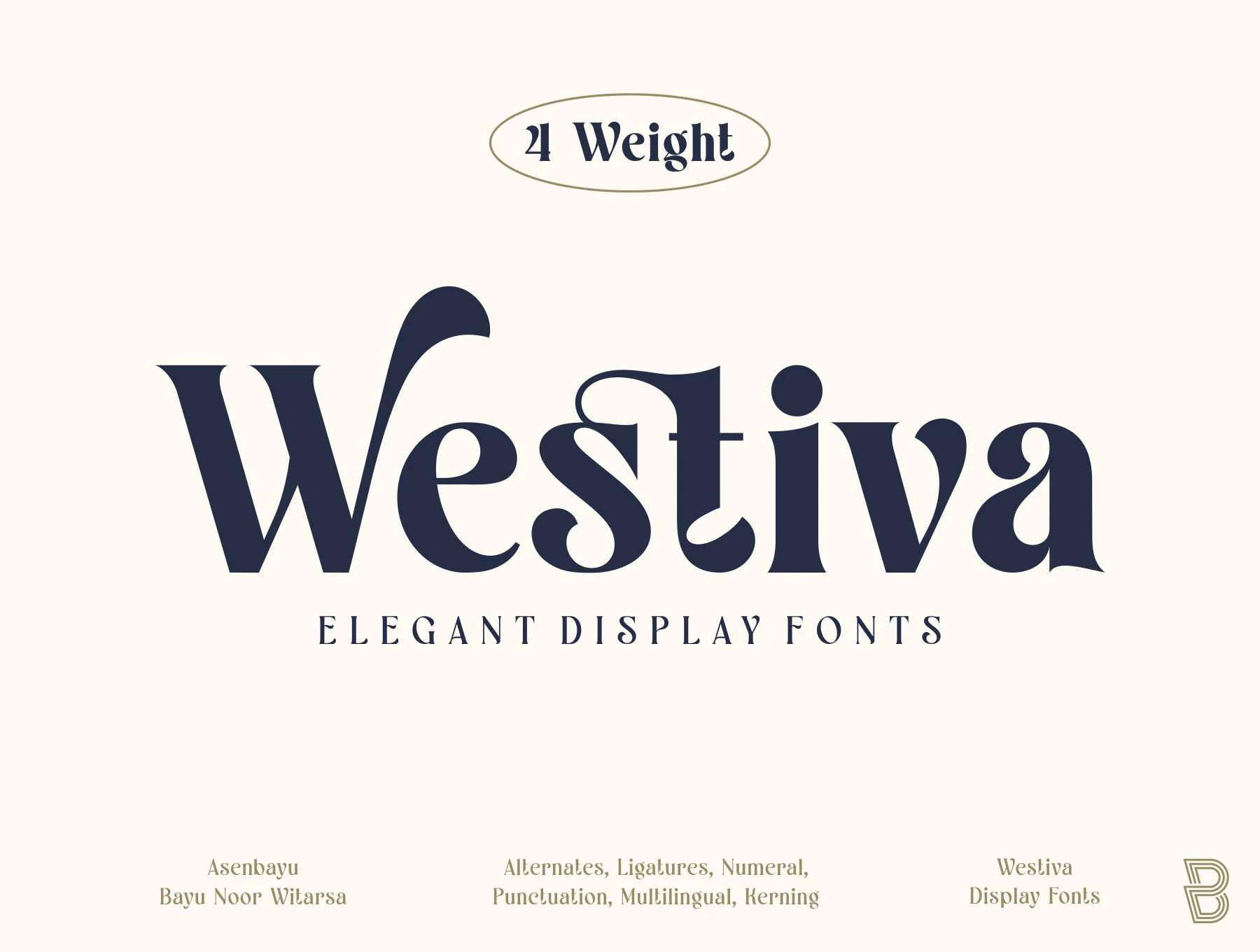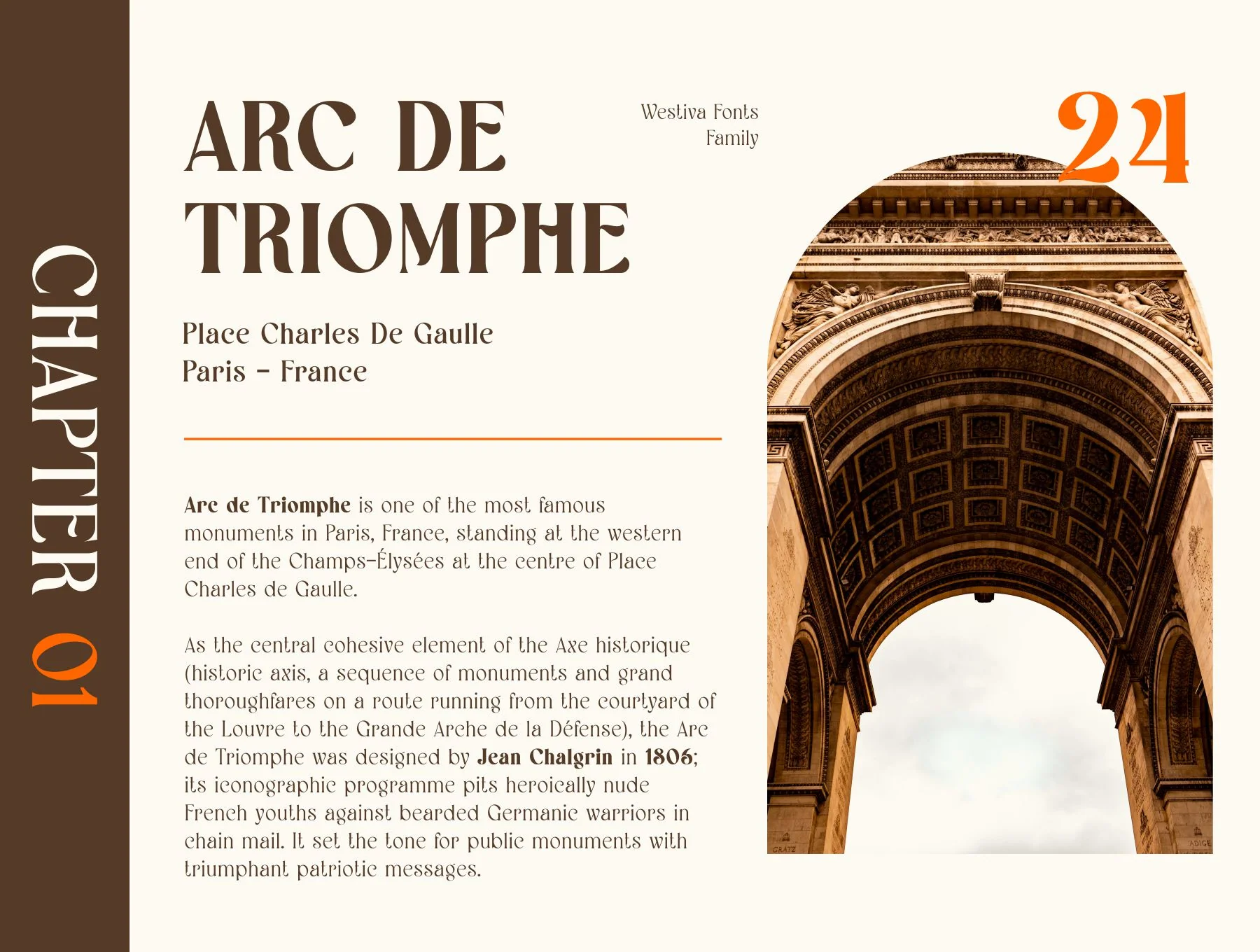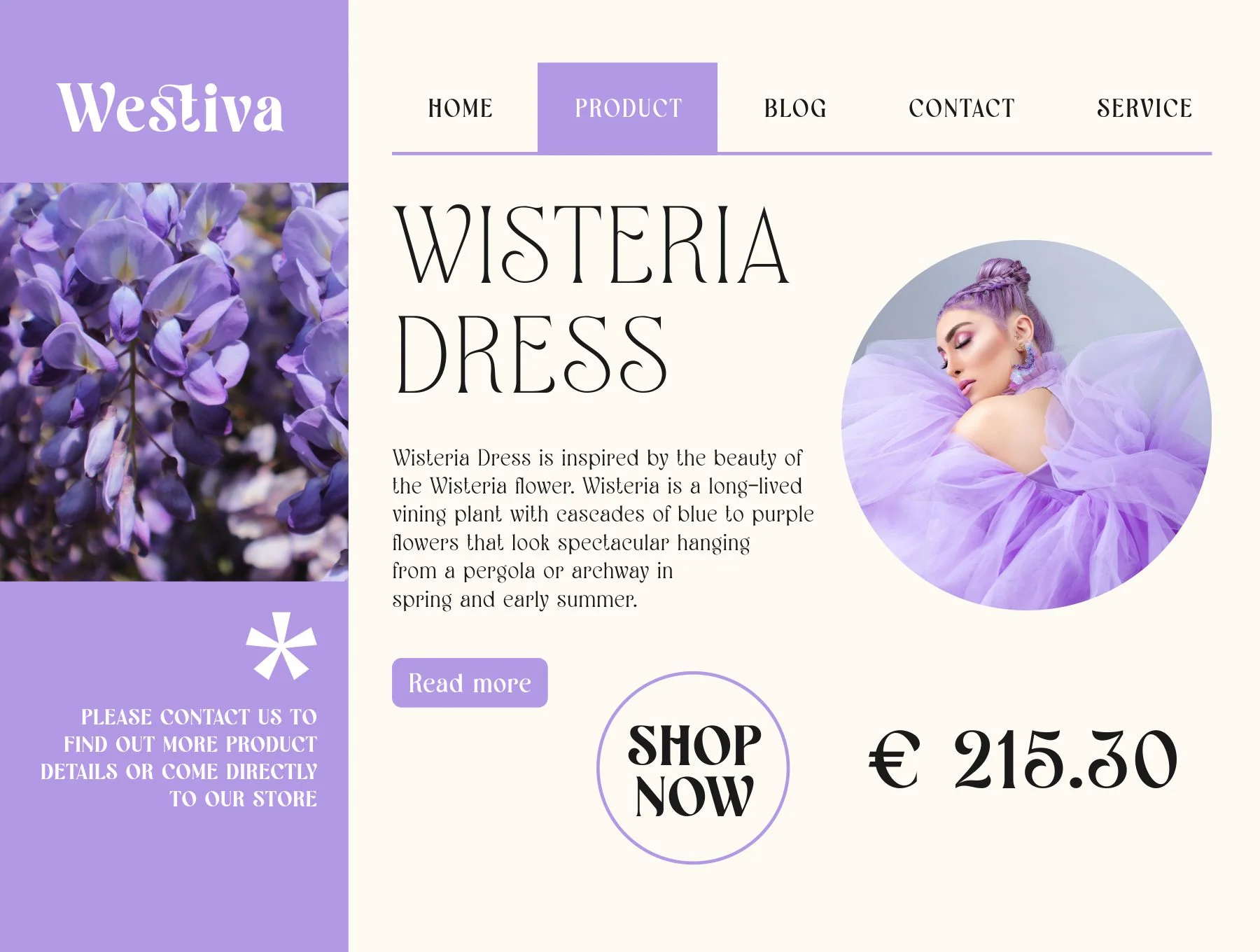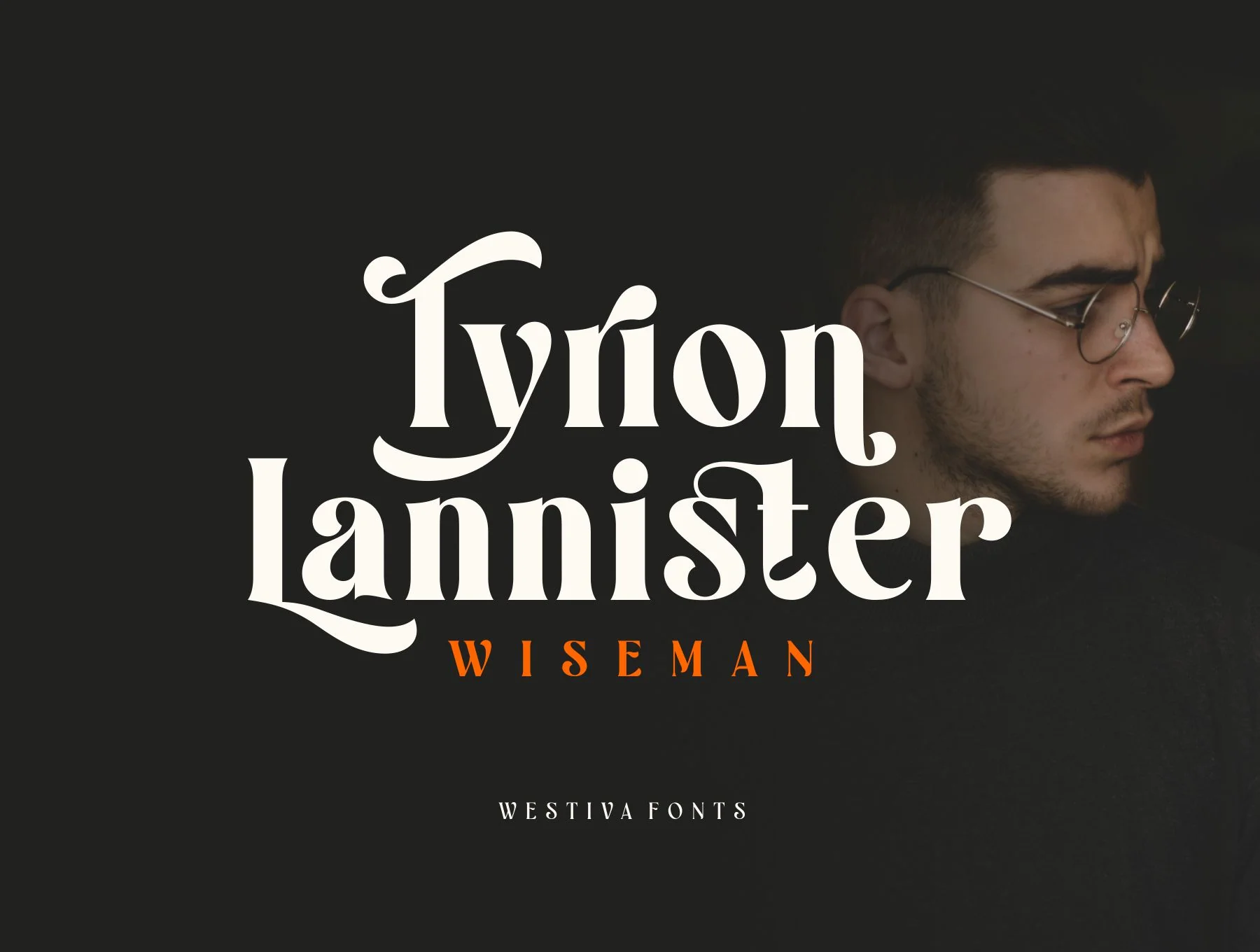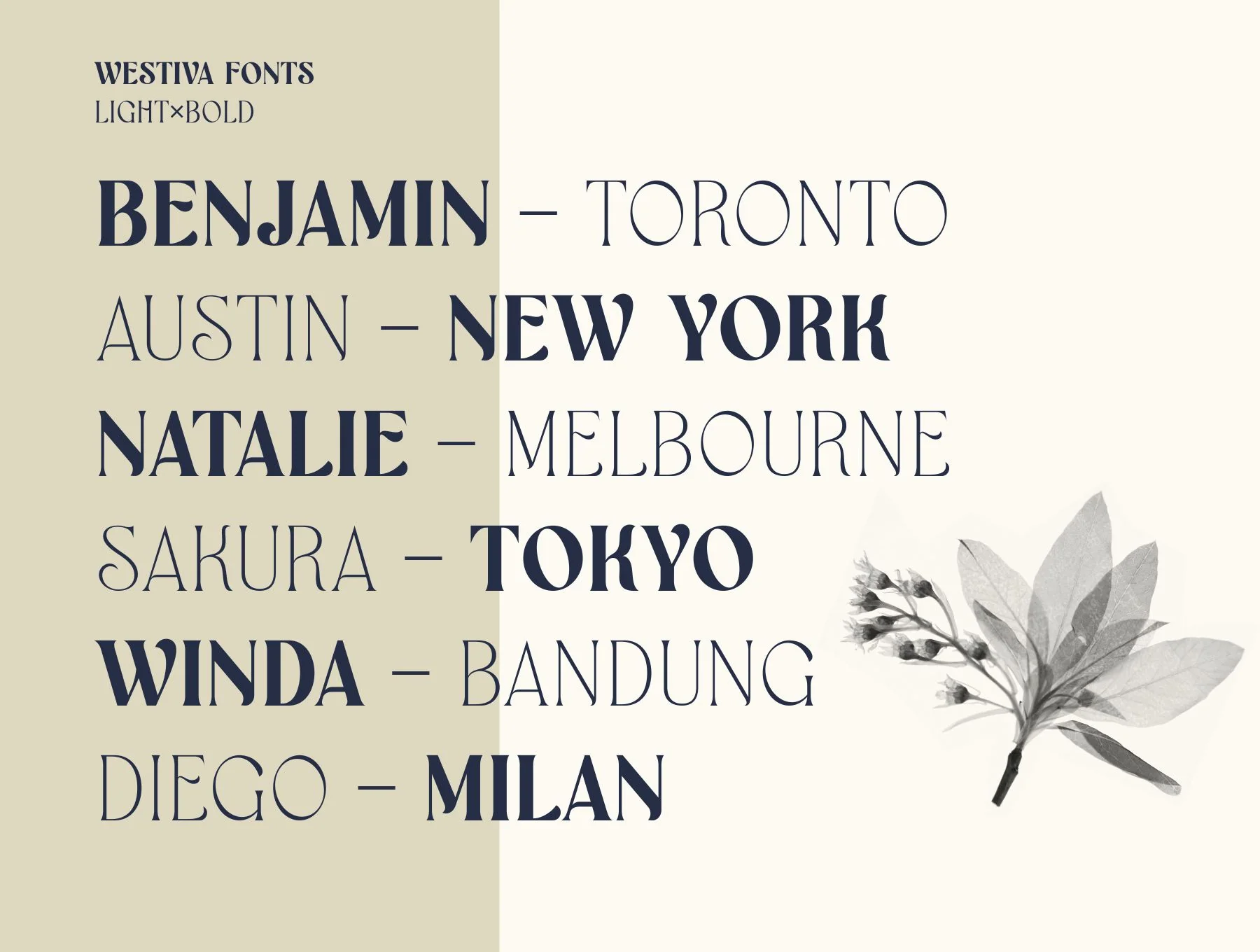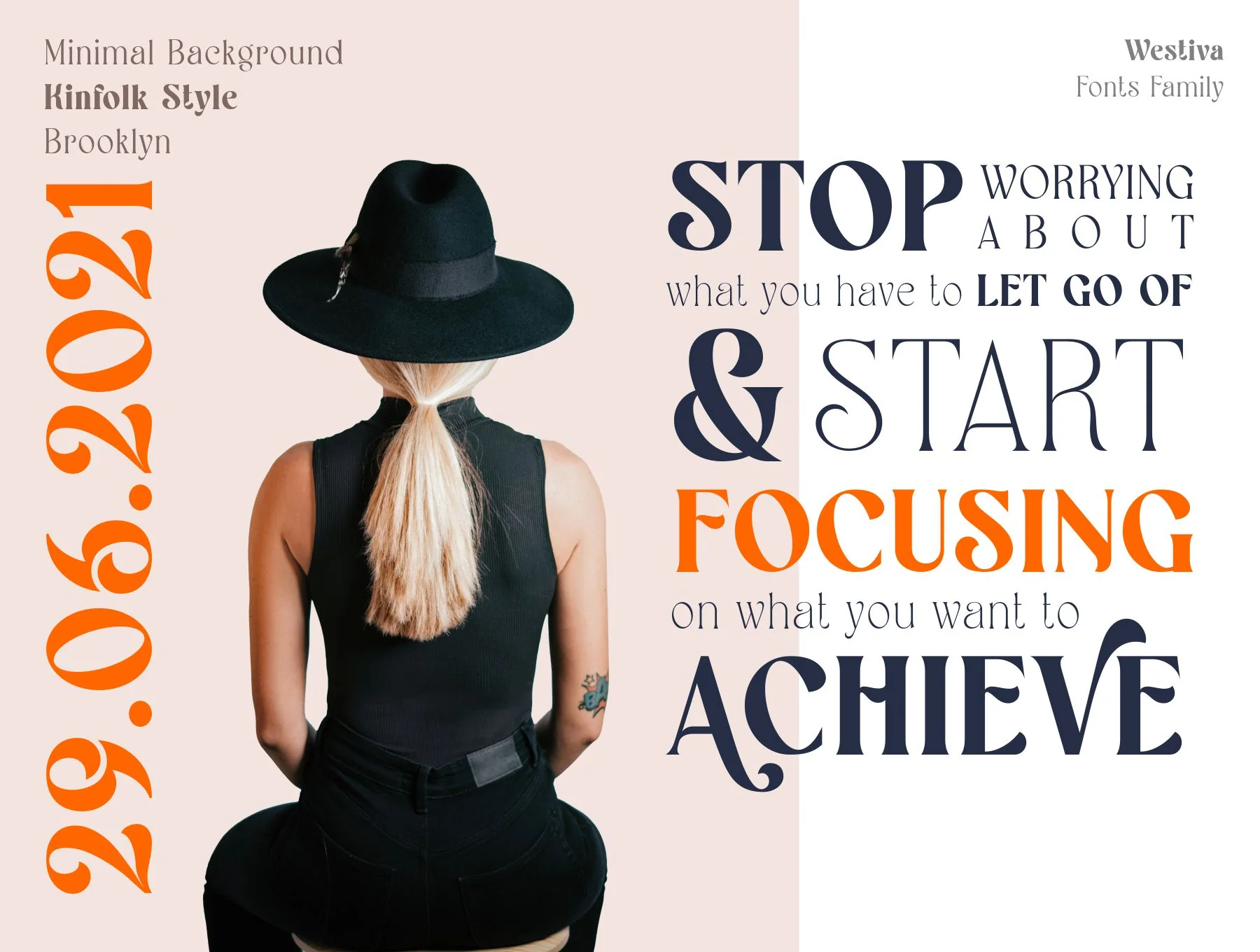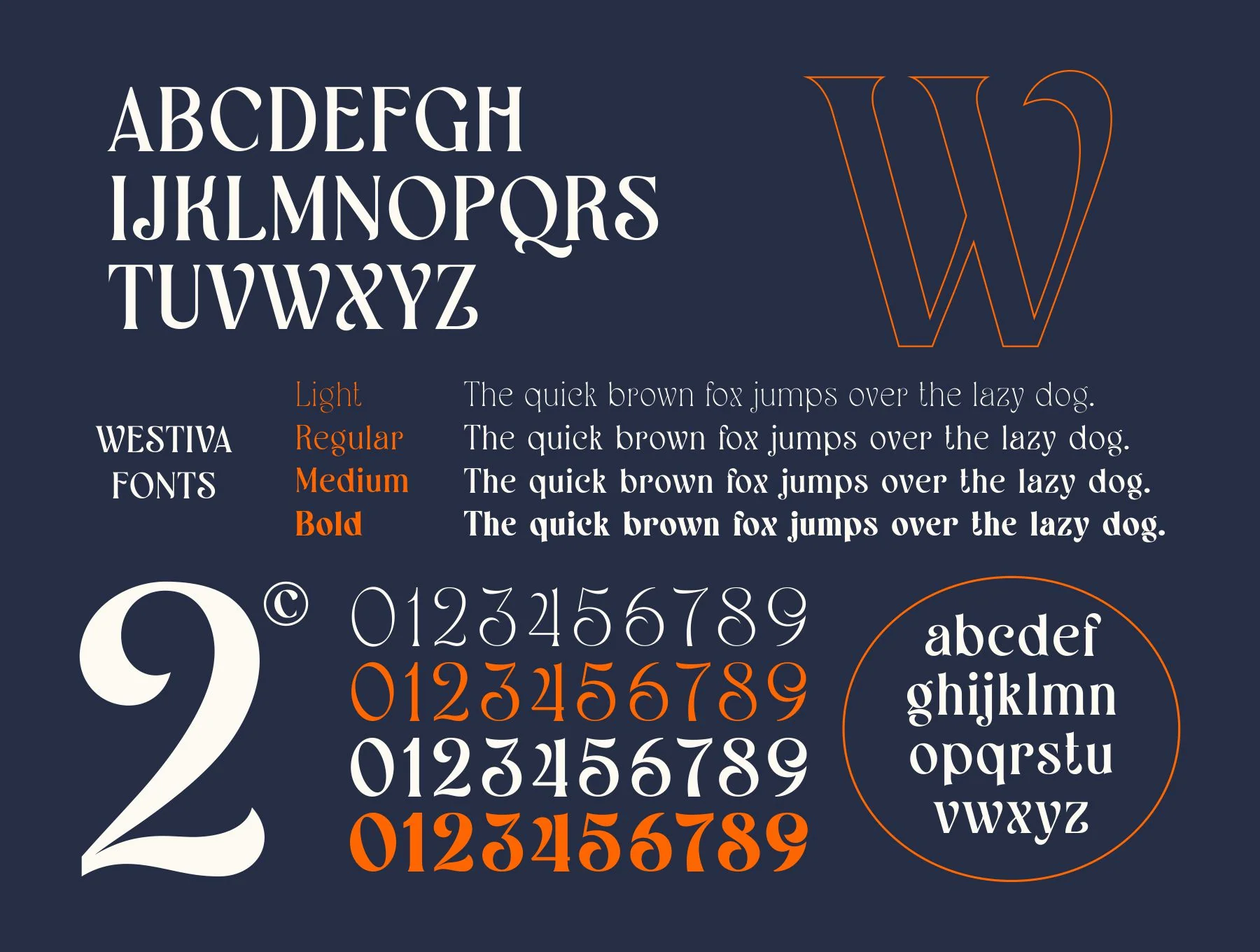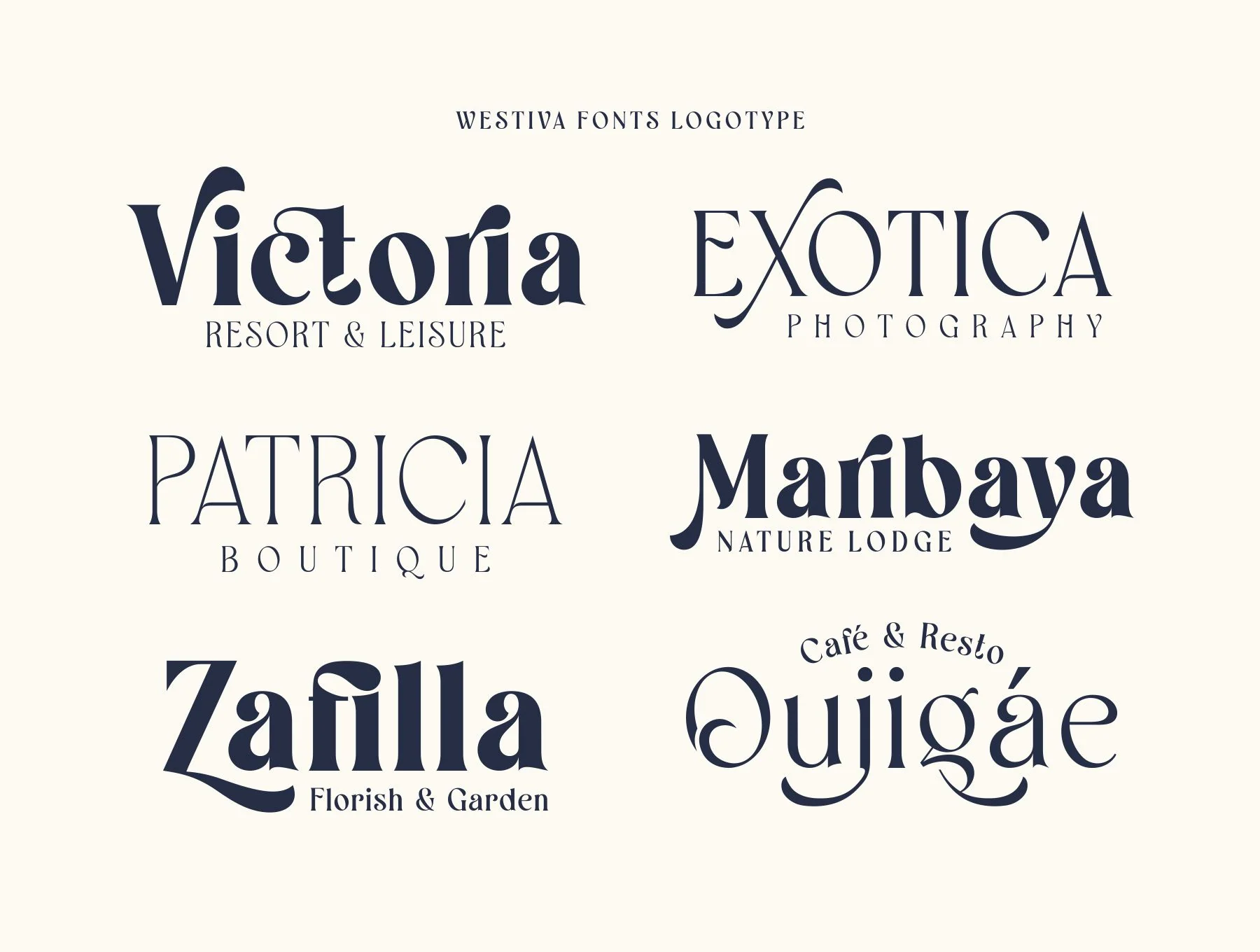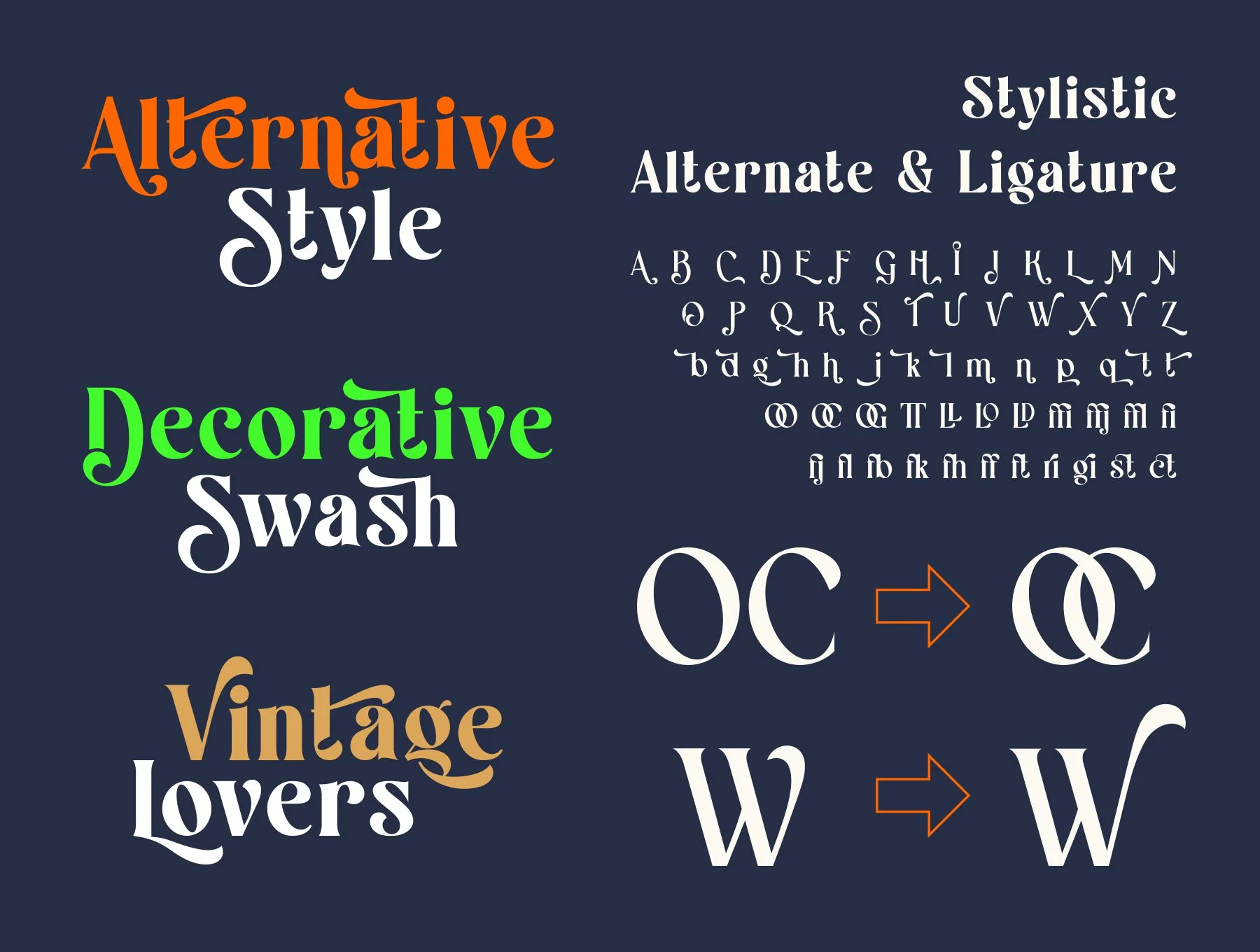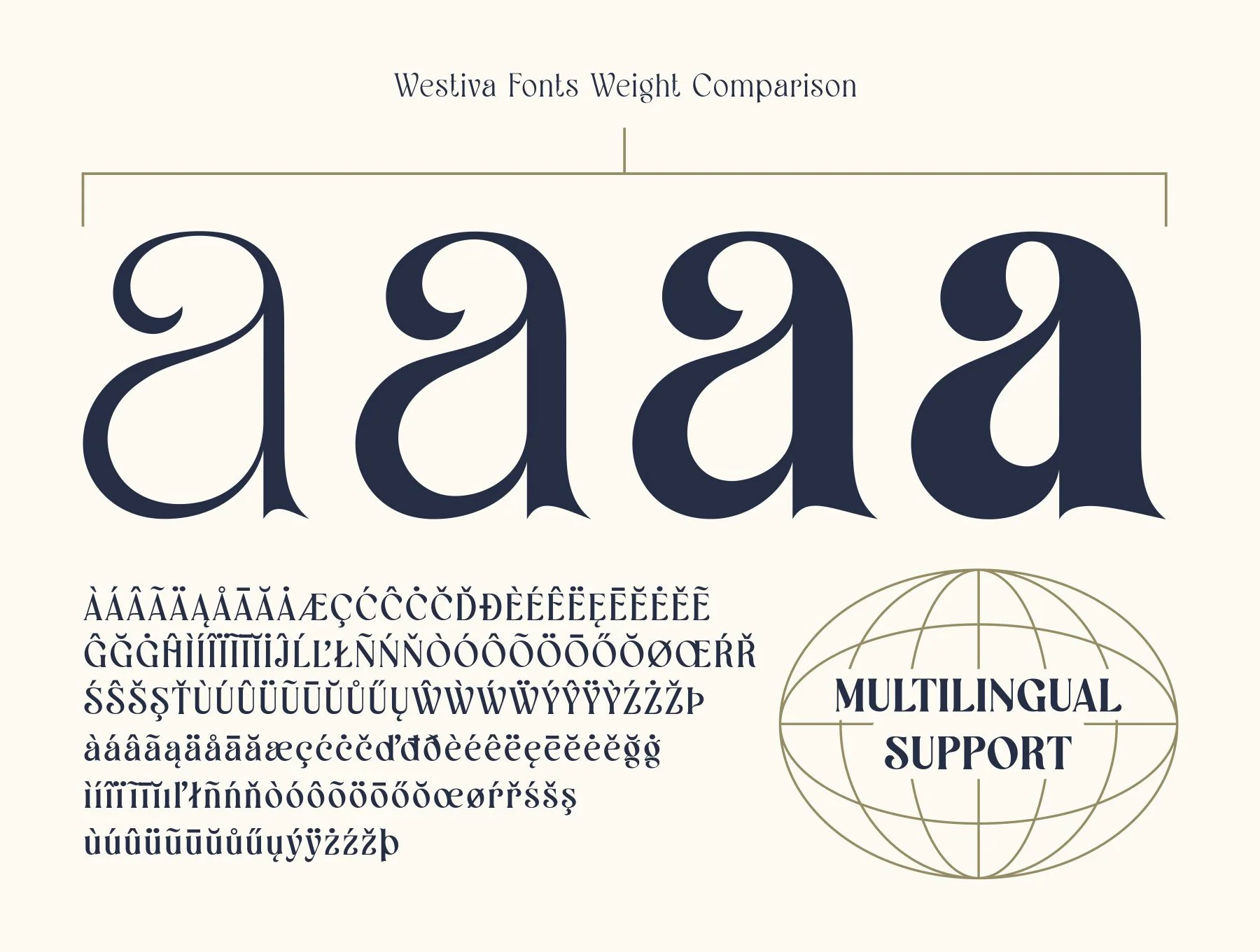
Westiva Fonts Family
Refined Decorative Typefaces
Core Glyph Set
Numbers and Marks
Alternate Styles with Ligatures
Support for Various Languages
Westiva is a refined serif typeface with graceful, organic curves. Ideal for premium logos, editorials, business cards, headings, packaging, social content, websites, and polished professional designs. It includes OpenType features, kerning, ligatures, alternates, four weights—Light, Regular, Medium, Bold—plus uppercase, lowercase, numbers, punctuation, and multilingual support.